How to create typefaces, from sketch to screen.
The revised and updated classic on the art and technique of type design.
The know-how of seasoned type designers, right in your hands.
Cristóbal, Laura and José are no less than towering figures in the Type Design industry. This is why this book is recommended reading in every faculty, school, and course that teaches about type. So much so that it was sold to out-of-print. It goes from a blank piece of paper to a published typeface. Ideation, digital production and tools, form and optical adjustments, programmes and distribution, typology and best practices. And then some more: How to Create Typefaces is back in this revised, redesigned and expanded edition.
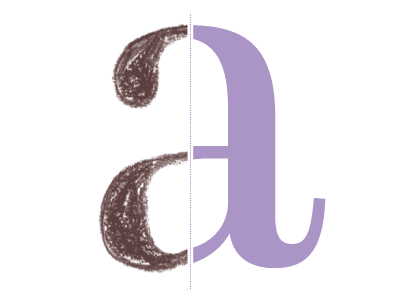
From Scratch to Impeccable
How experienced designers sketch, master and publish typefaces.
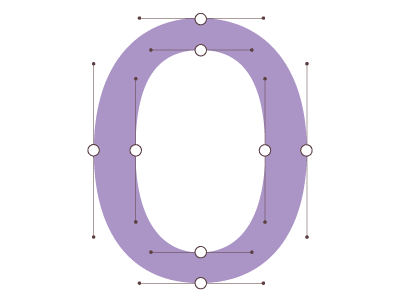
A Technical Sherpa
Digitization, tools and technical concepts: with your hand held every step of the way.
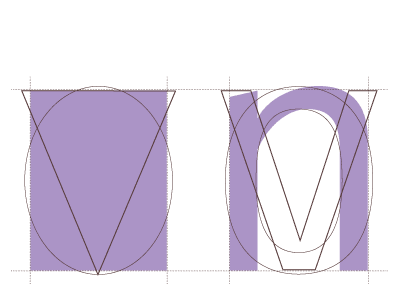
Learning to See
Form, proportions, optical adjustments. What makes type great, in depth.
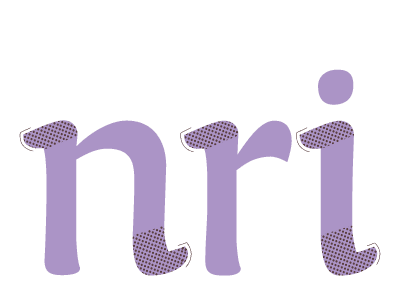
Consistency in Expression
Anatomical traits, structure and flair. When, how and why. Know the language, both visual and verbal.
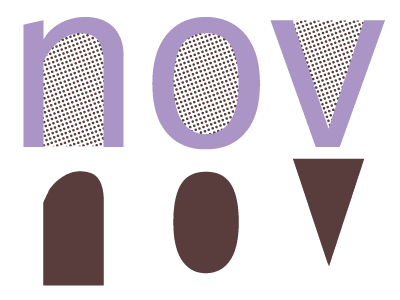
Shaping around Shape
Type is an indivisible dance between black and white. A sharp eye onto a delicate balance.
From Type Designers, for Type Designers
From dipping toes for the first time to decades-in-business professionals looking for fresh insights, How to Create Typefaces always have something to consider. It is personal, approachable and insightful; a teacher, mentor and peer in book format.
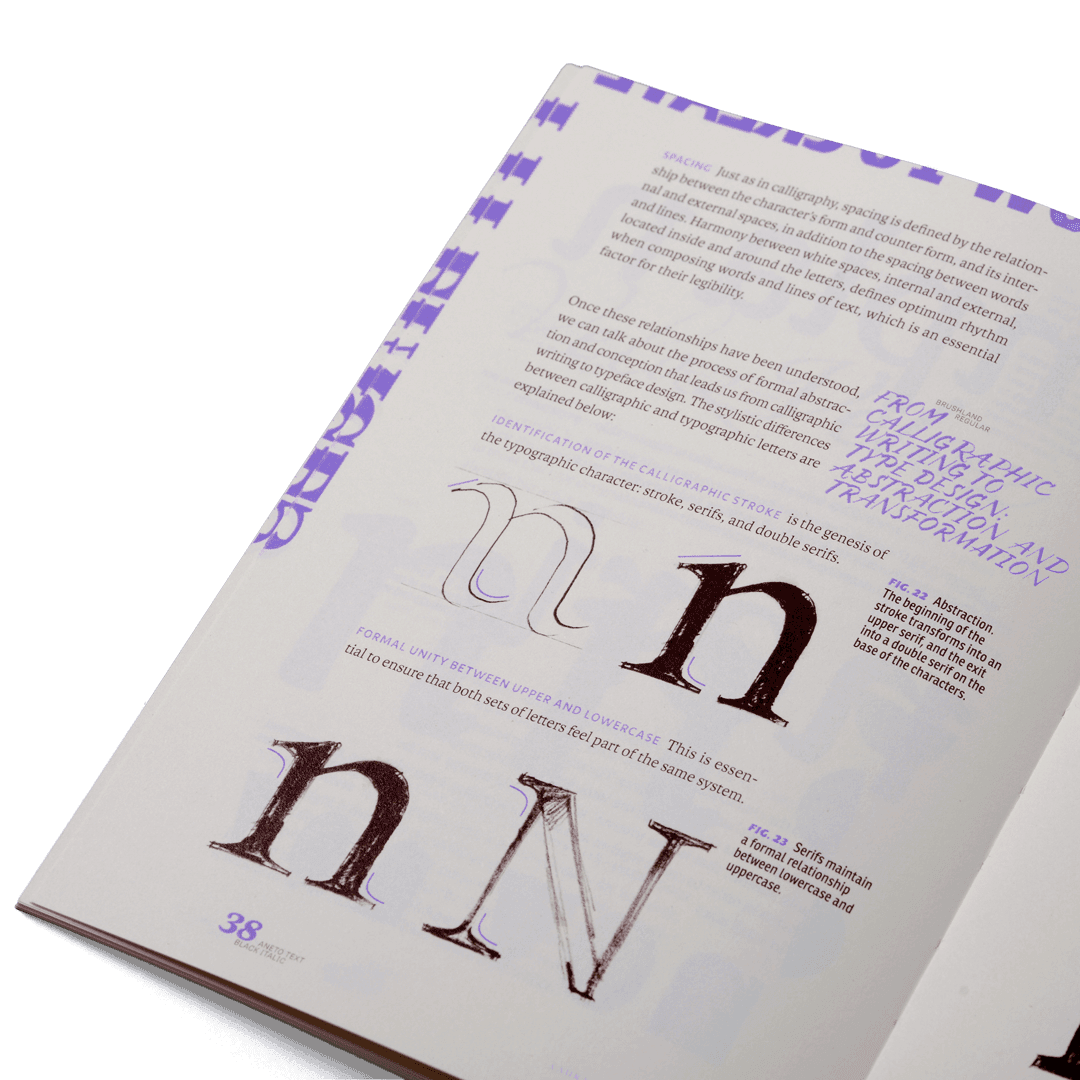
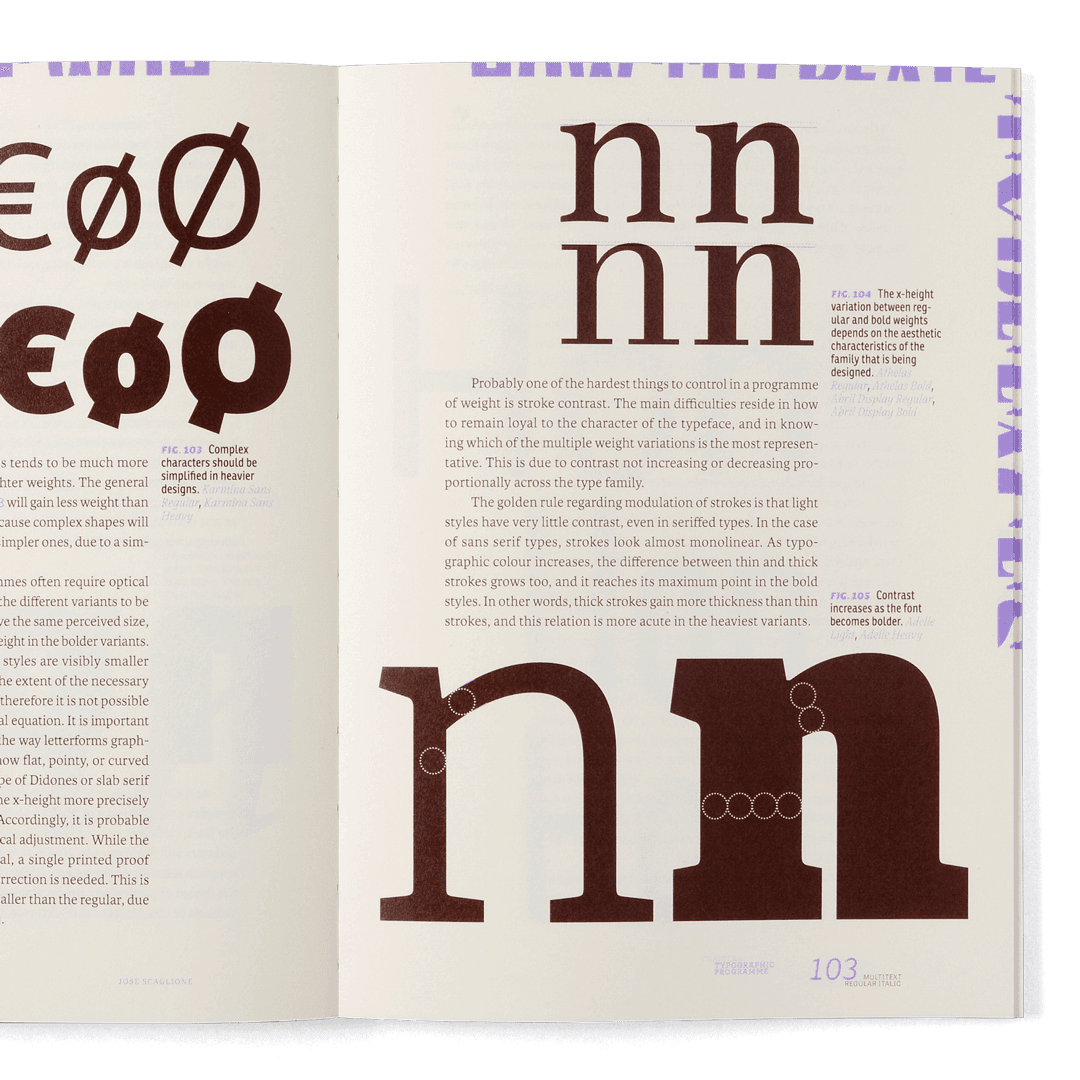
A Brand Architect’s Decoding Tool
Type isn’t just a Type Designer’s job. Unshakeable wordmarks, solid and tasteful text, a unique voice: Brand Designers live for type. No pretentious gatekeeping, no mysterious esoteric concepts. All explained, in detail. Having knowledge is being several steps ahead.
Atomic by Design
Every visual design system has its tokens, components, mechanics. Its atoms, molecules, and organisms. Type is no different. Understand how to break it in subcomponents and how these interact. How particles build structures, and how structures build systems. Disassemble, identify, categorize and put it all together again. Whole, cohesive, flawless.
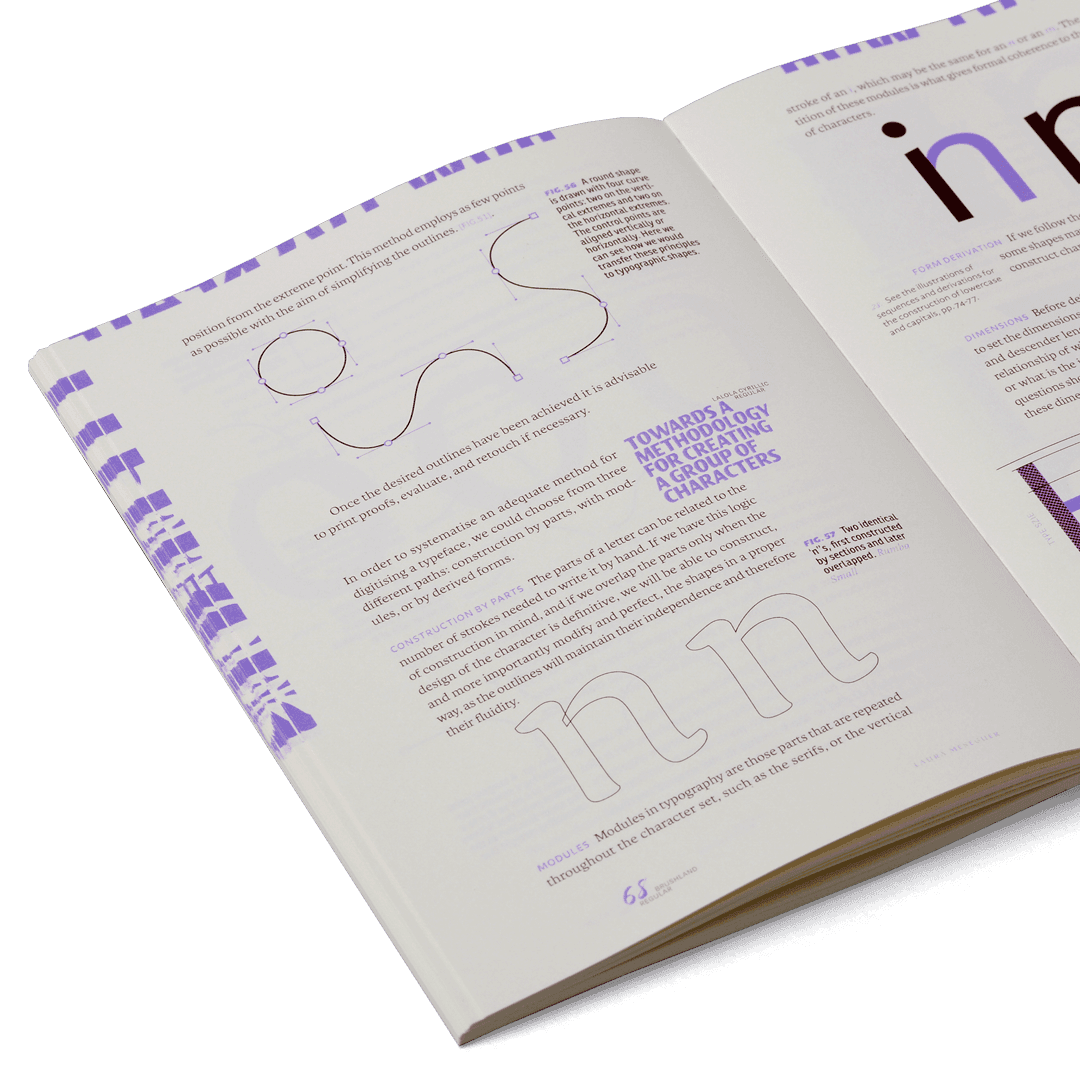
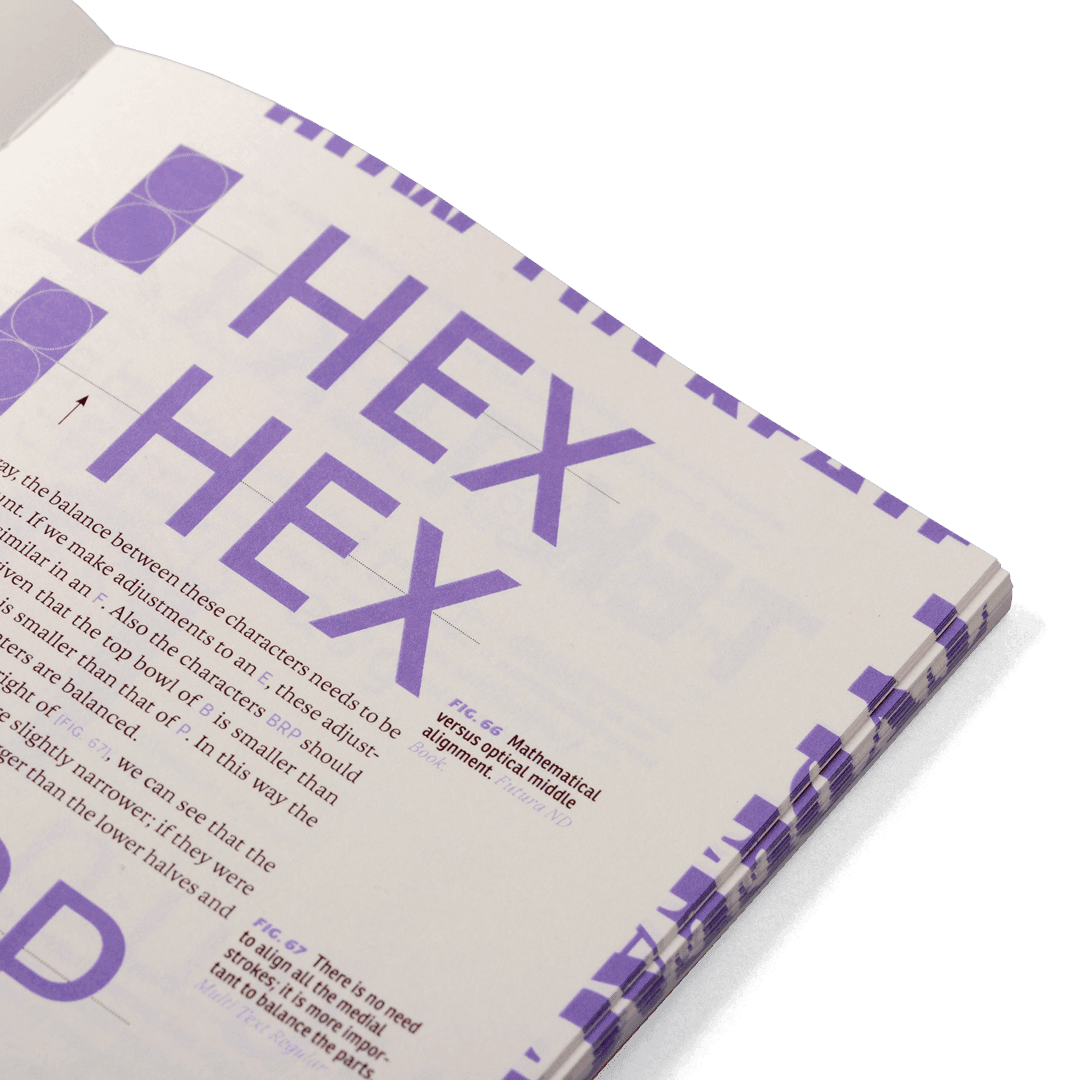
Looking to See
Type can seem full of sleights of hand. Circles that aren’t circles, strokes that appear — but aren’t — equal, asymmetry that seems symmetric, unevenness that feels even. It is not a trick; it’s both method and science. Learn to see, identify and manipulate form like professionals do.
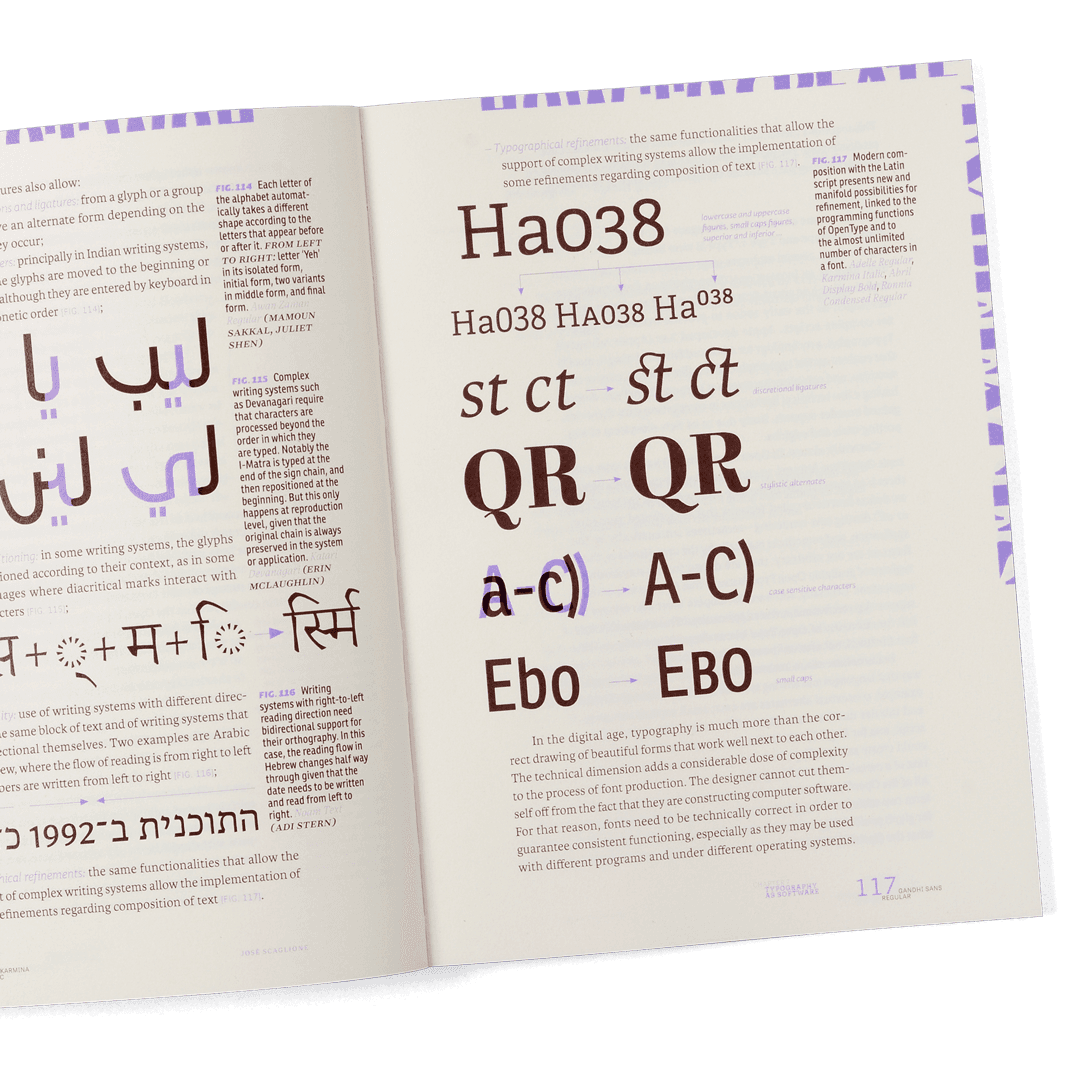
Visual World-building
Typefaces are as diverse as we are, and there is a world of we. Designing in several writing systems, notations and visual cultures brings this world together, one spectator at a time. Learn the tools to pair multiple scripts, to strategize complexity. To become stylistically diverse.
Preface by Gerry Leonidas
University of Reading
“(…) Absorbing for the practitioner, fascinating for the perpetual learner. (…)”
Cristóbal Henestrosa
As a Mexican typeface and book designer, his work has won prestigious awards from the Type Directors Club and Tipos Latinos. Currently a typography professor at UNAM, he designs custom type families for major institutions and contributed to the Spanish editions of classic texts like Bringhurst’s The Elements of Typographic Style.
Laura Meseguer
Laura Meseguer is a Barcelona-based typographer, type designer, and educator. She co-founded Type-Ø-Tones, one of Spain’s pioneering digital type foundries. Alumni of the Type & Media program at the Royal Academy of Art, The Hague, she later served on the board of ATypI. She also directs Tipo-g, an independent type design school based in Barcelona. Her custom and retail typefaces have received multiple international awards and recognitions.
José Scaglione
As an Argentinian typeface designer, lecturer, and author, he co-founded the award-winning independent foundry TypeTogether. A former president of the Association Typographique Internationale (ATypI), he frequently lectures at international conferences, authors books on typography, and co-directs the MA in Editorial Design at the National University of Litoral.